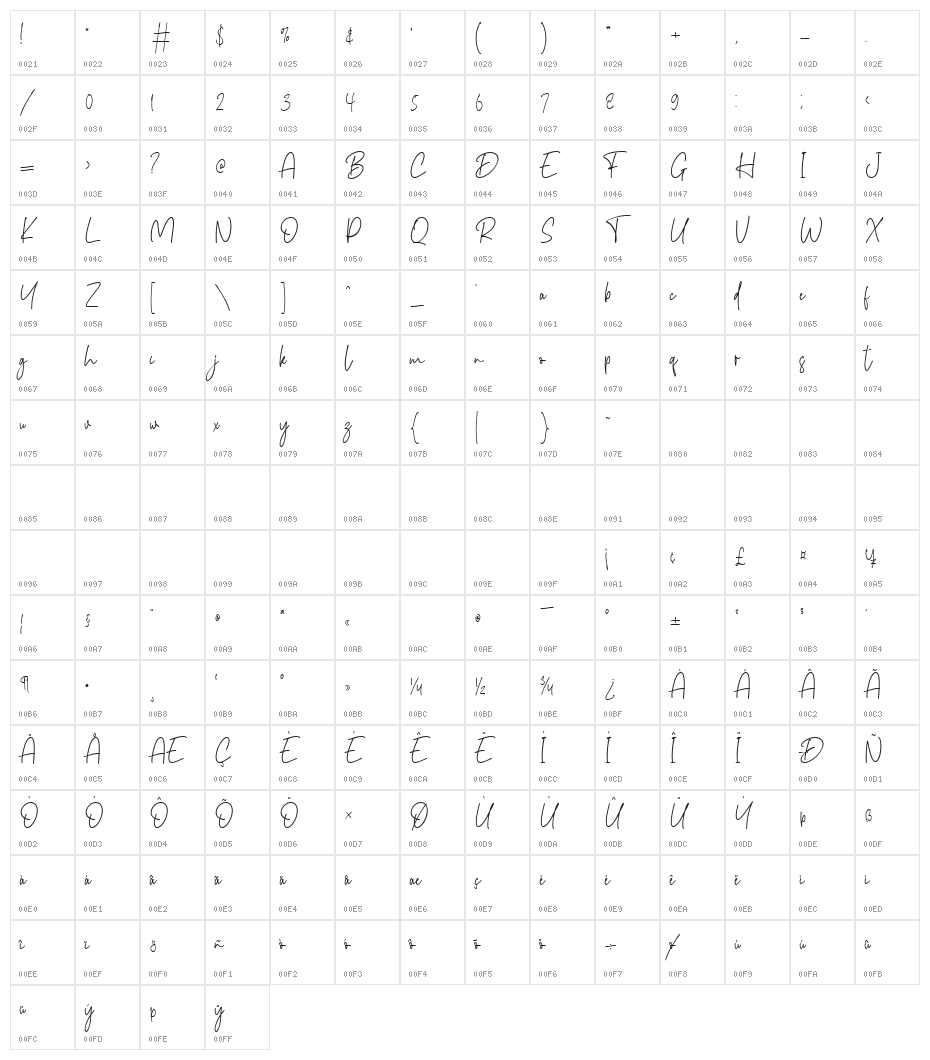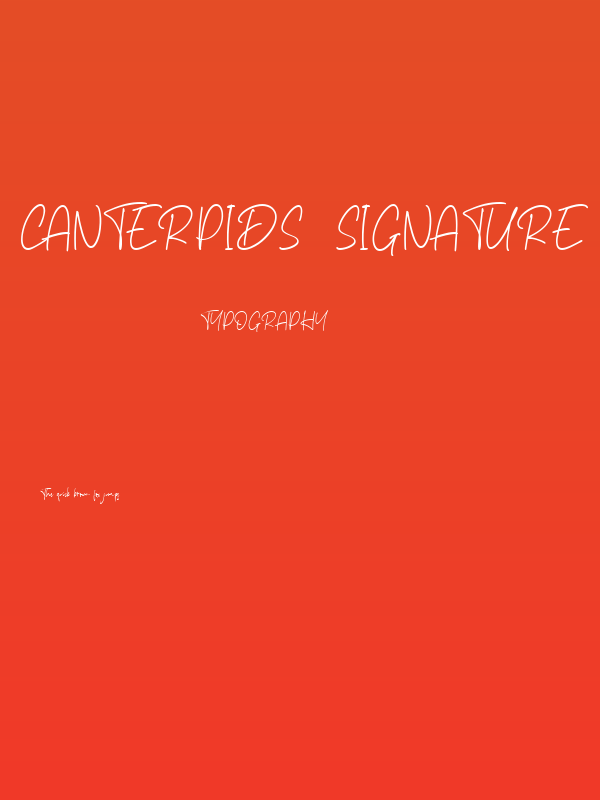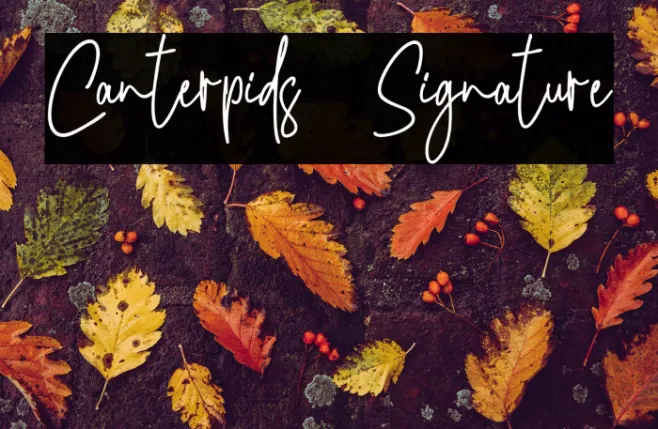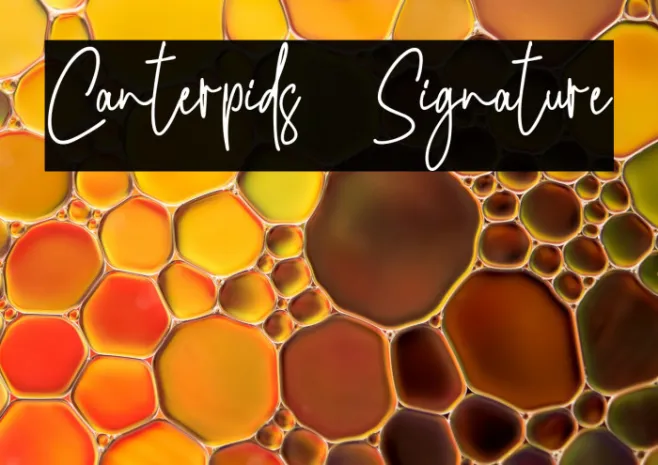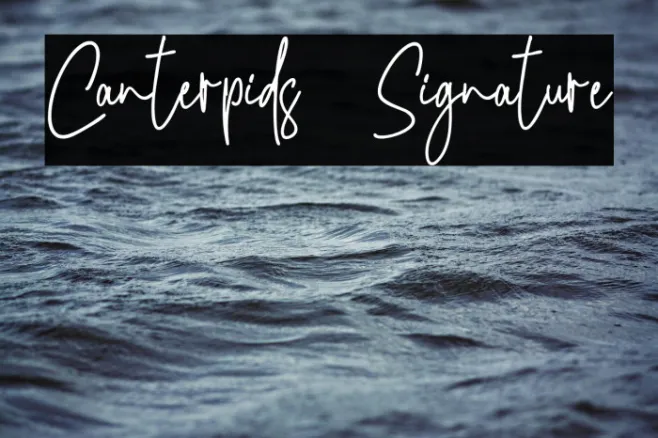
Canterpids Signature Font
Canterpids Signature Description
This font exudes a casual yet elegant handwritten style, characterized by its fluid and natural strokes. The uppercase letters are tall and slightly narrow, while the lowercase letters maintain a consistent flow with a slight slant, giving it a personal touch. The numbers are clear and legible, matching the overall aesthetic. Special characters are seamlessly integrated, maintaining the font's cohesive look. This font is perfect for projects that require a personal or artistic flair, such as invitations, greeting cards, or branding materials.
| Overall Style | Casual, Elegant |
| Use Case | Headlines, Logos, Personal projects |
| Proposed Projects | Ideal for invitations, greeting cards, branding, and personal projects. |